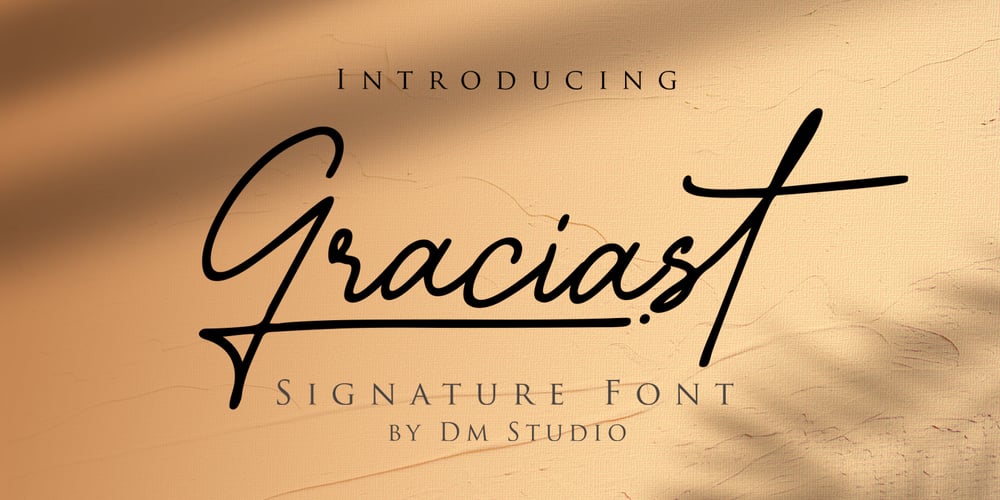
Graciast
Graciast font
Graciast Font Family was designed by Dimas Prasetyo and published by DM Studio. Graciast contains 1 styles and family package options. Graciast Signature Font is a sophisticated and elegant typeface that captures the essence of handwritten signatures with a modern twist. Perfect for luxury branding, wedding invitations, and stylish logos, this font adds a touch of refinement and personality to your designs. Embrace the elegance and fluidity of the Graciast Signature Font for your high-end projects.Features: Sophisticated and Elegant Design: The Graciast Signature Font features sleek and refined letterforms that emulate the beauty of handwritten signatures, adding a personal and luxurious touch to your text. Versatile Application: Ideal for luxury branding, wedding invitations, stylish logos, and other high-end projects. This font enhances the elegance and professionalism of your designs. Uppercase and Lowercase Letters: Both uppercase and lowercase letters are included, providing flexibility and creative freedom. Ligatures and Special Characters: The Graciast Signature Font offers a selection of ligatures and stylistic alternates that enhance the elegance and fluidity of your text, allowing you to create unique and personalized typography. Punctuation and Symbols: Includes a comprehensive set of punctuation marks, numerals, and symbols, ensuring consistency and versatility in your design projects. Easy Installation and Use: Simple installation on both Windows and Mac operating systems. Seamlessly integrates with popular design software such as Adobe Photoshop, Illustrator, and InDesign, ensuring a smooth and efficient design workflow.